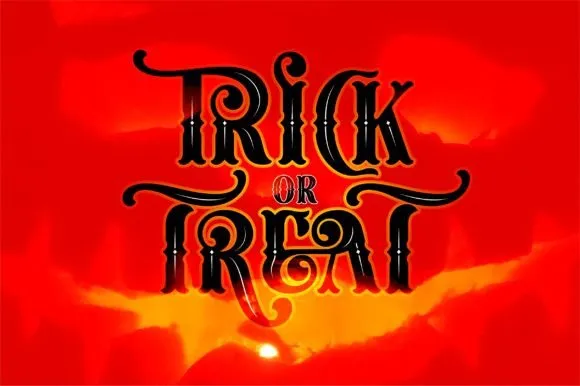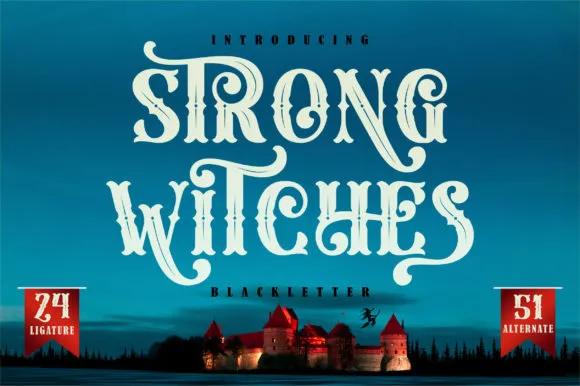
Strong Witches Font Witch is a striking fun blackletter textual style, this text style is the best text style to add serious areas of strength for a tomfoolery feel to your next plan thought!